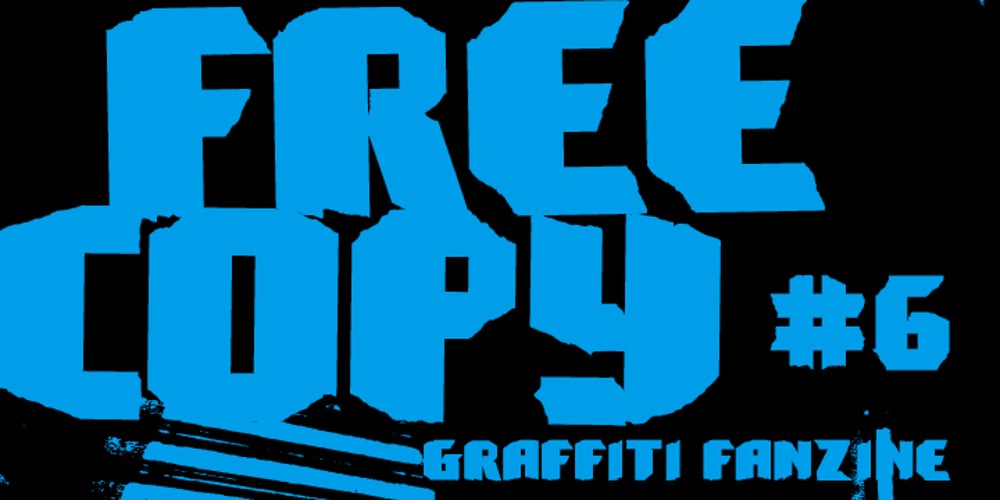
Cinta Adhesiva Font Family was designed by Ian Lynam, Eye One and published by Wordshape. Cinta Adhesiva contains 2 styles and family package options. Cinta Adhesiva began as a typeface designed for the masthead of a graffiti fanzine called Free Copy. The monumental letters painted by L.A.-based graffiti writers Crae and Hael greatly influenced the feel of the typeface. The availability and ease-of-use of tape as a medium to write with is apparent on a multitude of surfaces, and this approach led to the creation of Cinta Adhesiva.